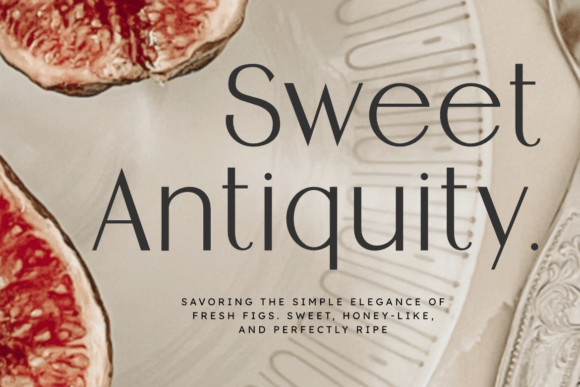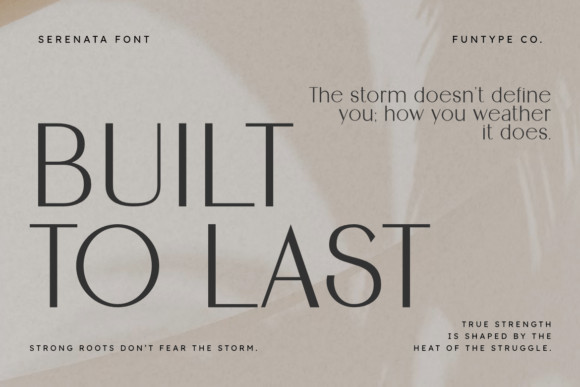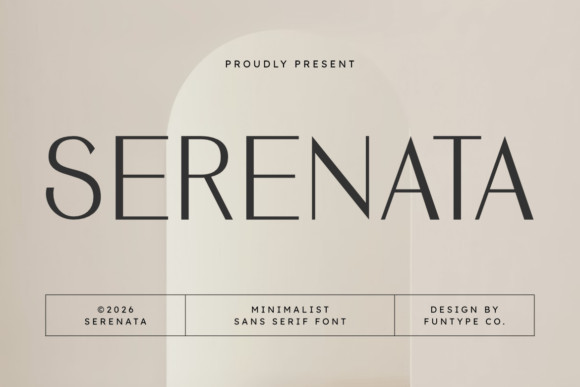
Serenata Font
Serenata Font is a beautifully crafted sans serif font that defines modern minimalism. With its clean lines, thin stroke weight, and balanced geometric shapes, Serenata offers a sophisticated aesthetic that is both timeless and contemporary. This font is designed for creators who believe that “less is more.
Its airy and open feel makes it perfect for luxury branding where white space and elegance are key. Serenatashines in high-end editorial designs, minimalist logos, and sophisticated social media layouts, providing a polished look that feels premium and effortless.